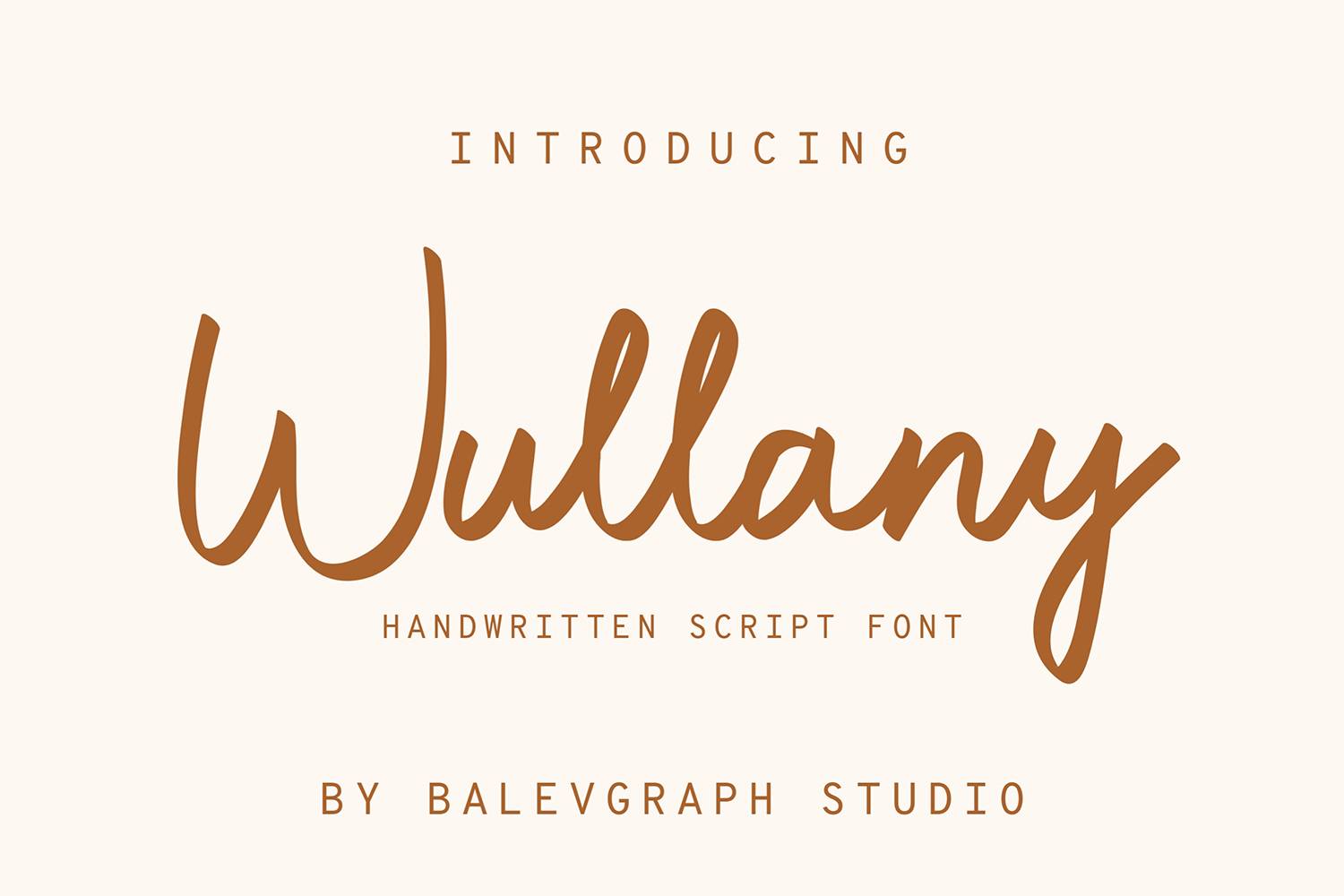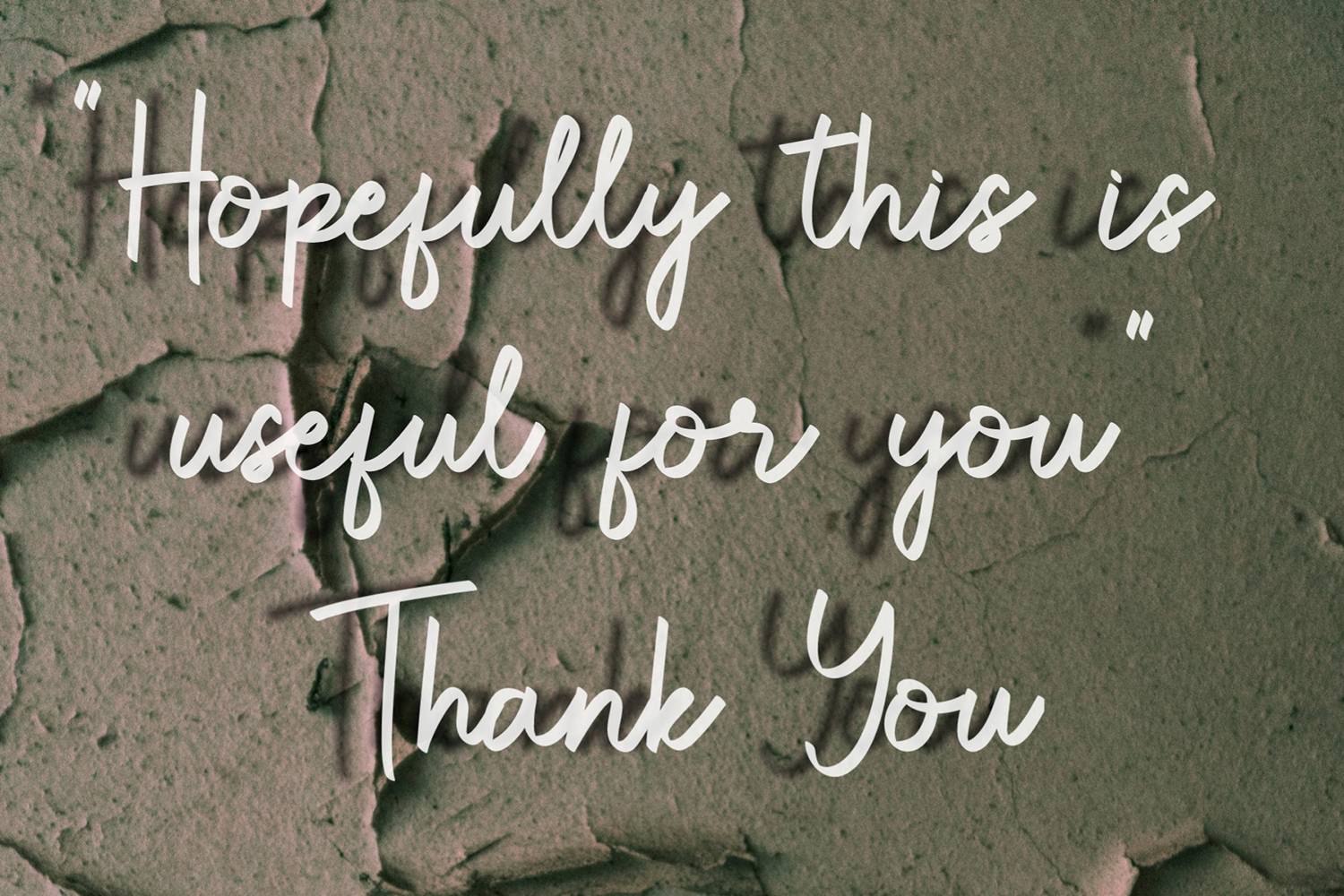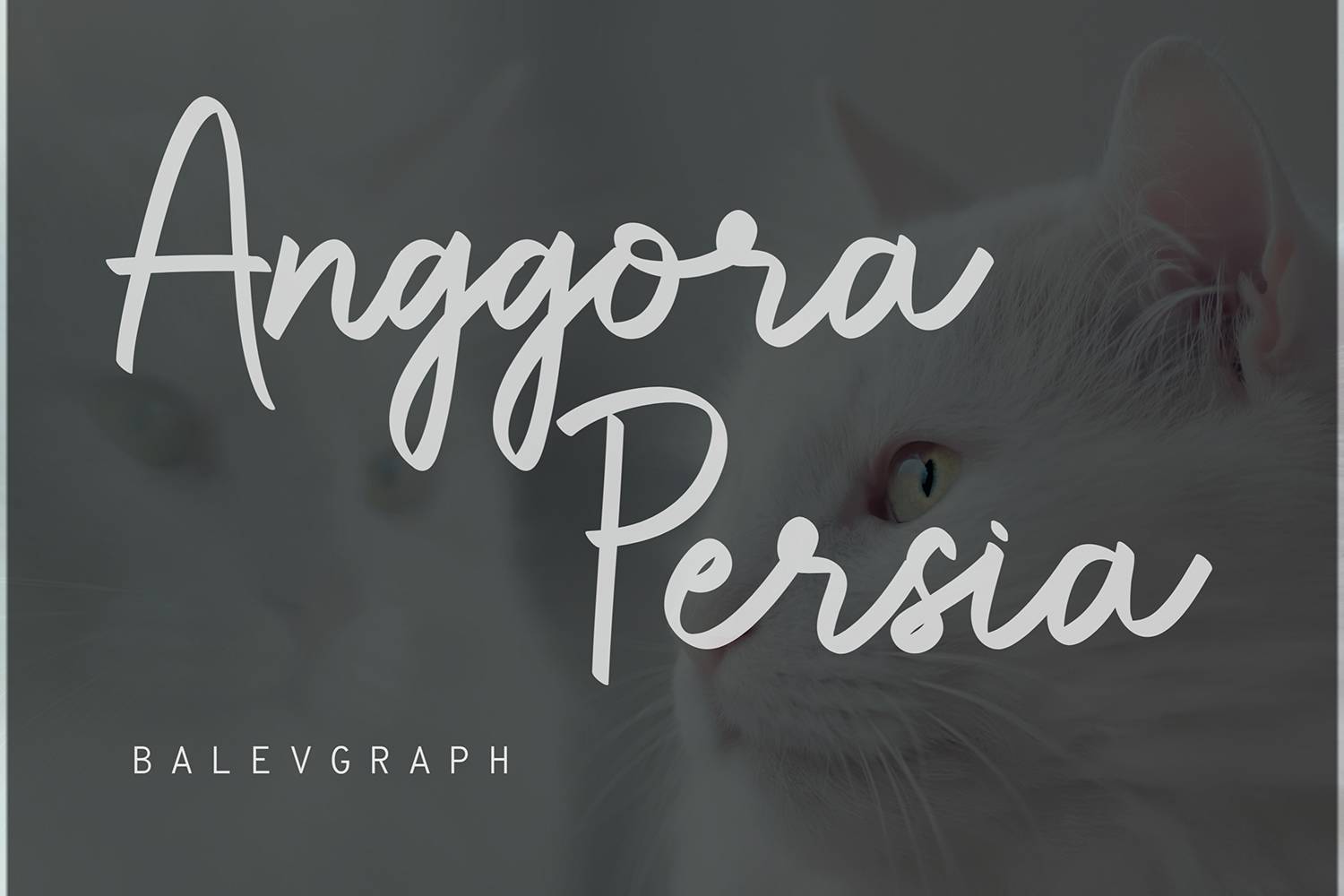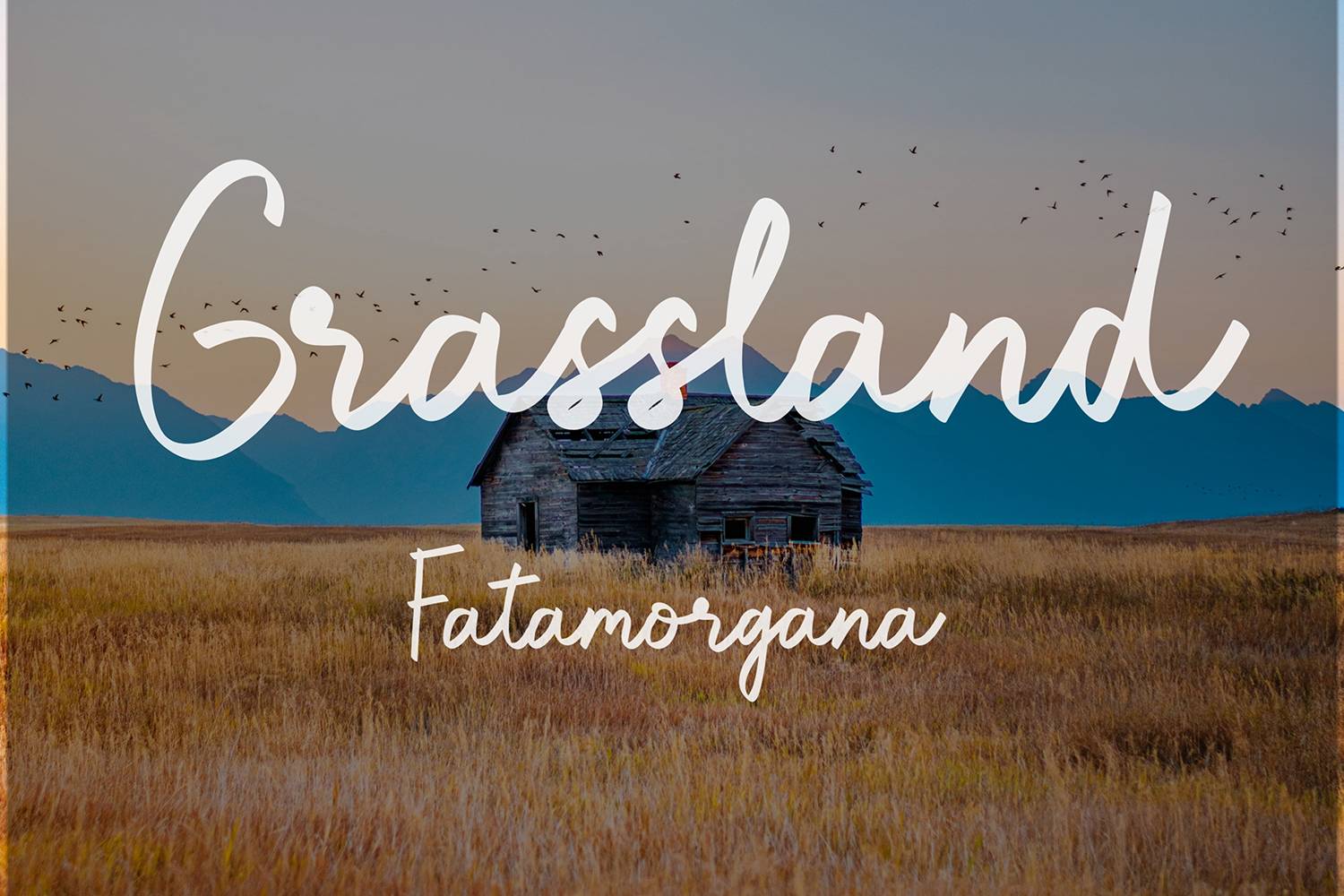
Wullany is a casual, handwritten script font with a lively and informal style that mimics natural penmanship. Its slender, slightly irregular strokes give it a friendly and approachable personality, making it perfect for creative projects, personal branding, and playful design contexts where a relaxed, authentic feel is desired. This font works well for invitations, logos, and social media graphics, adding a personal and charming touch without sacrificing readability.
Wullany Font
About Wullany Font
| Font family | Wullany Font |